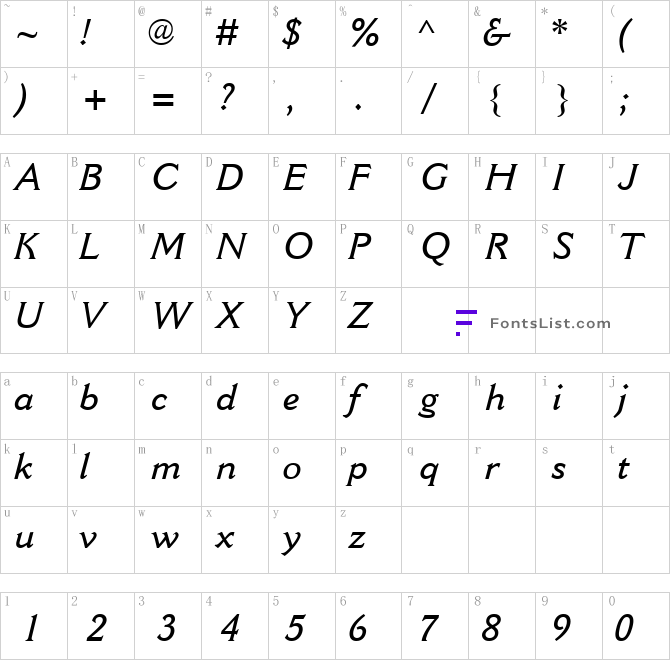
- Font Name:Cantoria MT SemiBold
- Subfamily:Monotype - Cantoria MT SemiBold Italic
- Full Name:Cantoria MT SemiBold Italic
Cantoria-MT-SemiBold-Italic.ttf is a very beautiful artistic font, Cantoria-MT-SemiBold-Italic.ttf is widely used in the design and printing of various books and pictures,Cantoria-MT-SemiBold-Italic.ttf has a strong visual impact,Cantoria-MT-SemiBold-Italic.ttf is a commonly used font in newspapers, magazines and books, and is used in posters, e-commerce Poster design, store design, logo design, font design and other fields.Cantoria-MT-SemiBold-Italic.